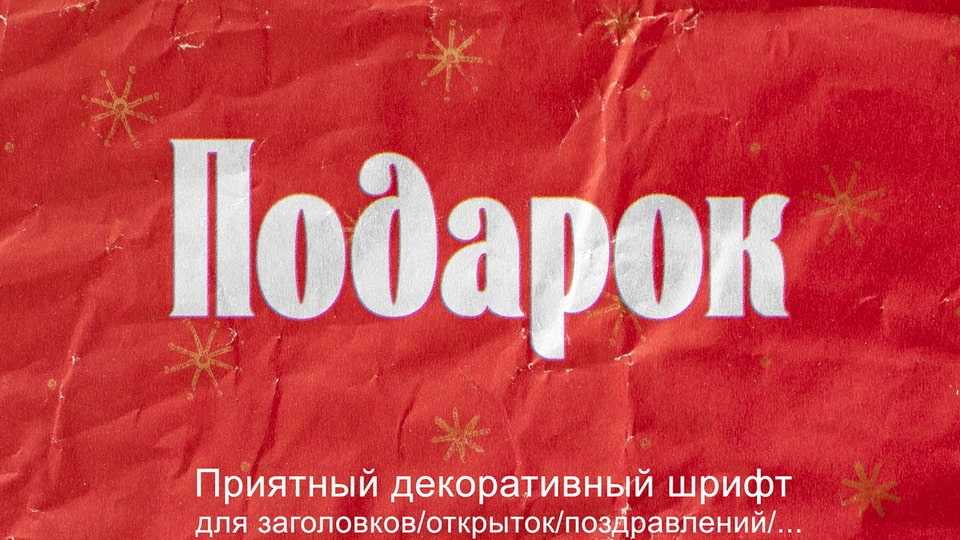
Download Podarok font, a charming decorative display typeface inspired by the warmth and cheer of holiday gift-giving. With its soft curves, high contrast, and elegant serifs, Podarok evokes the nostalgia of vintage Russian packaging.
Designer: Tim Kasimoff